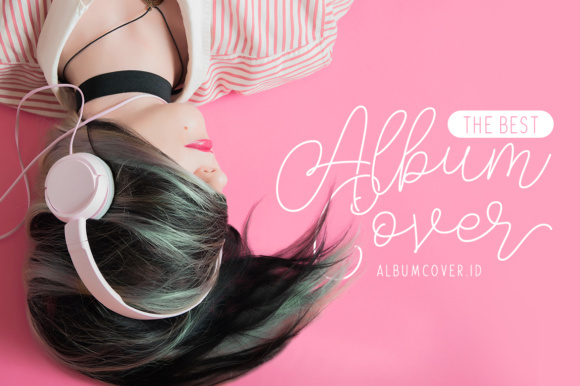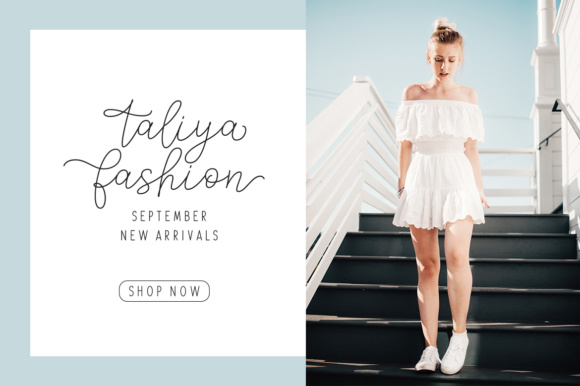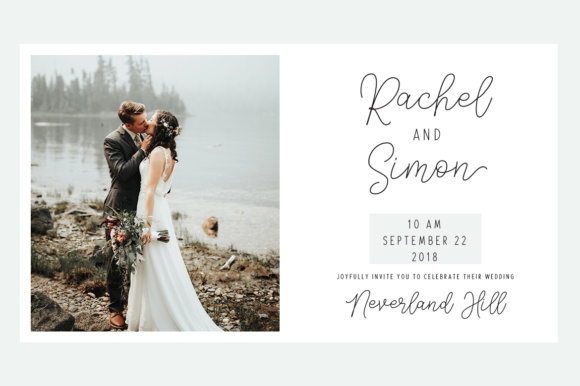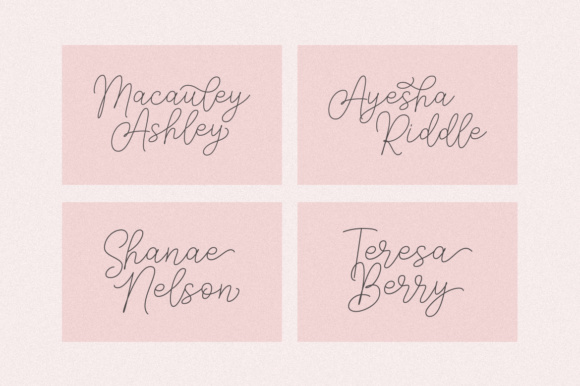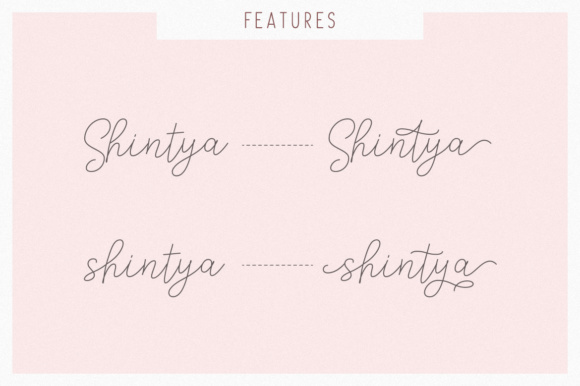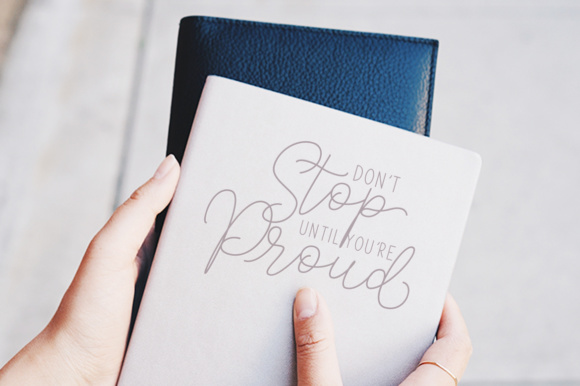
Introducing Andien Nidya Duo Font: Elevate Your Designs with Elegance
In the world of typography, a font can make or break the aesthetic of a design project. For designers and crafters looking to add a touch of sophistication and modernity to their work, the Andien Nidya Duo Font is an exceptional choice. This versatile font duo combines the elegance of monoline calligraphy with the clarity of a sans serif, offering the best of both worlds.
What is Andien Nidya Duo Font?
The Andien Nidya is a thoughtfully crafted monoline calligraphy font duo that includes two distinct styles: a script and a sans version. This allows designers to maintain consistency across their projects while providing the flexibility to experiment with different looks. The monoline calligraphy style is characterized by its fluid, connected letters that give a sense of movement and elegance. On the other hand, the sans version offers a clean, modern aesthetic that pairs perfectly with its script counterpart.
Key Features of Andien Nidya Duo Font
- Sophisticated Monoline Signature Style: The Andien Nidya script version boasts a sophisticated monoline signature style that adds a classy touch to any project. Its fluid lines and elegant connections make it perfect for designs that require a personal and luxurious feel.
- Script and Sans Version: The duo comes in two complementary styles, allowing designers to use them together for a cohesive look or separately to match the tone of their projects.
- Monoline Calligraphy: The script version features beautiful monoline calligraphy, ideal for creating eye-catching headlines, invitations, and quotes.
- Modern Touch: The sans version of the font provides a modern, clean look that can be used for body text, captions, or any design element that requires clarity and readability.
- Perfect for Various Projects: From branding and advertising to packaging and personal crafts, the Andien Nidya Duo Font is versatile enough to elevate a wide range of design projects.
Why Choose Andien Nidya Duo Font?
Choosing the right font for a design project can be daunting, but the Andien Nidya Duo Font stands out for several reasons:
- Versatility: The combination of a script and sans version in one font duo offers unparalleled versatility, making it suitable for various design applications.
- Elegance and Modernity: The font successfully blends elegance with a modern aesthetic, ensuring that designs stand out with a contemporary yet sophisticated look.
- Easy to Read: Despite its elegant and artistic nature, the Andien Nidya Duo Font maintains excellent readability, making it suitable for both headlines and body text.
- Time-Saving: Having two complementary fonts in one duo saves designers time and effort in searching for matching fonts, streamlining the design process.
Using Andien Nidya Duo Font in Design Projects
The Andien Nidya Duo Font can be seamlessly integrated into a variety of design projects. Here are some ideas:
- Branding and Logotypes: Use the script version for logotypes or brand names to add a personal and luxurious touch.
- Invitations and Stationery: The elegant monoline calligraphy is perfect for wedding invitations, event flyers, and personal stationery.
- Packaging: Add a classy and modern touch to product packaging with the Andien Nidya Duo Font.
- Digital Content: Use the sans version for website headers, blog posts, or social media graphics to give your content a clean and modern look.
| Font Name | Andien Nidya Duo Font |
| Author | Weape Design |
The Andien Nidya Duo Font is a powerful tool for designers and crafters looking to infuse their projects with elegance and a modern touch. Its sophisticated monoline calligraphy and clean sans version make it a versatile and valuable addition to any design toolkit. Whether you’re working on branding, packaging, or personal crafts, this font duo is sure to elevate your designs and make them stand out.
With its unique blend of style, versatility, and readability, the Andien Nidya Duo Font is an excellent choice for anyone looking to add a classy and contemporary feel to their work. So, why settle for ordinary when you can create something extraordinary with the Andien Nidya Duo Font?